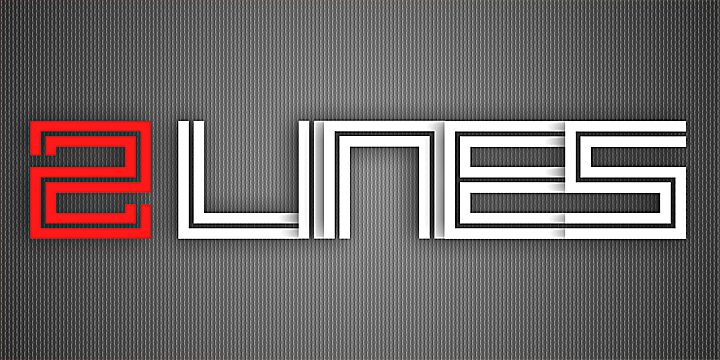
2 Lines by Carlos Matteoli is a free techno display font with broad squared capitals and a continuous double-line treatment. Its tight right-angle turns and open internal tracks recall circuit diagrams and maze routes. The repeated gaps give even the widest forms a crisp mechanical rhythm.
Circuit-board imagery is its clearest companion. On technology posters, arcade game graphics, electronic music packaging, and event branding, the tracked letter shapes can extend into borders or diagram lines, turning a title into part of the interface or emblem rather than leaving it as ordinary type.